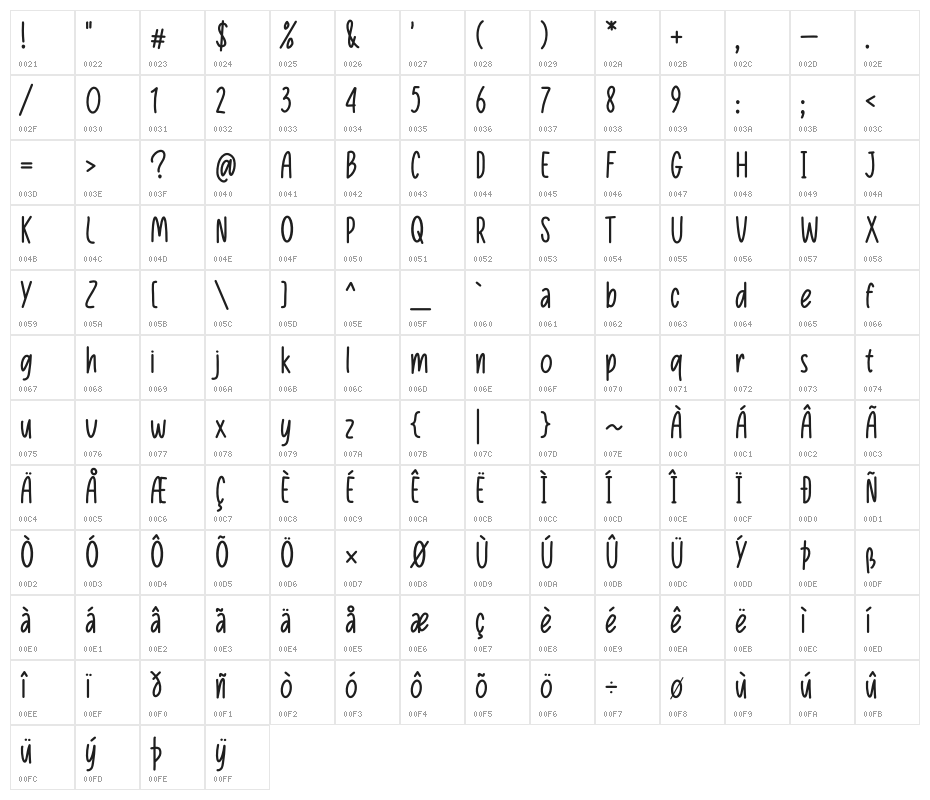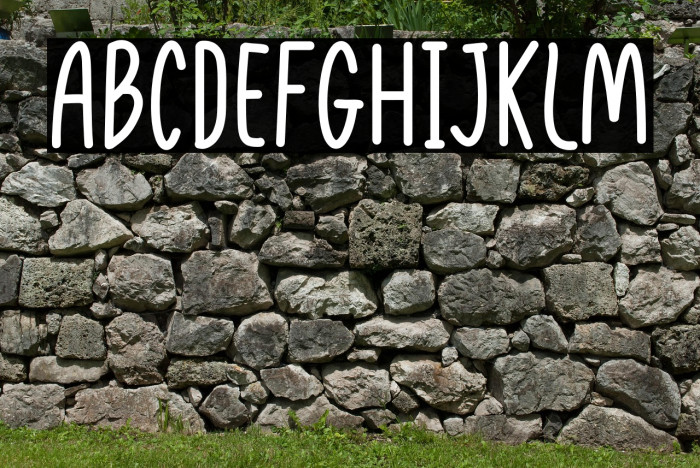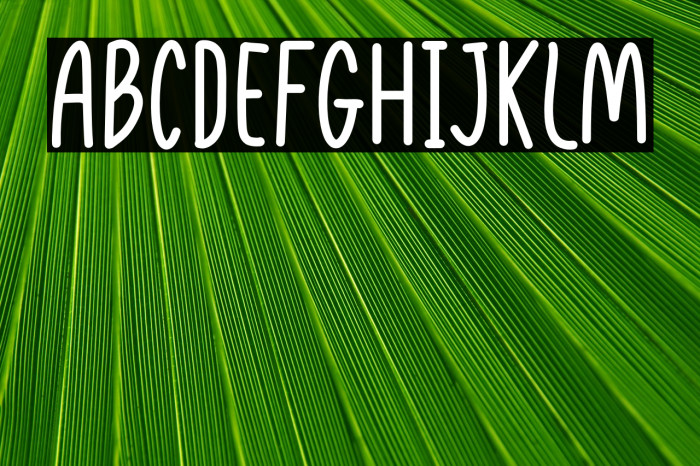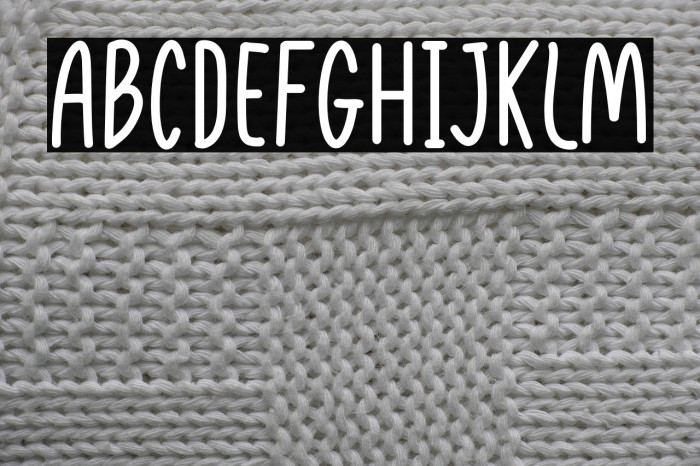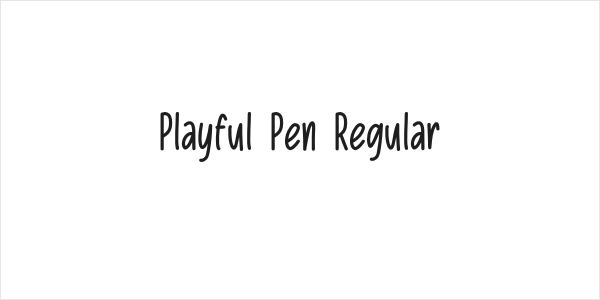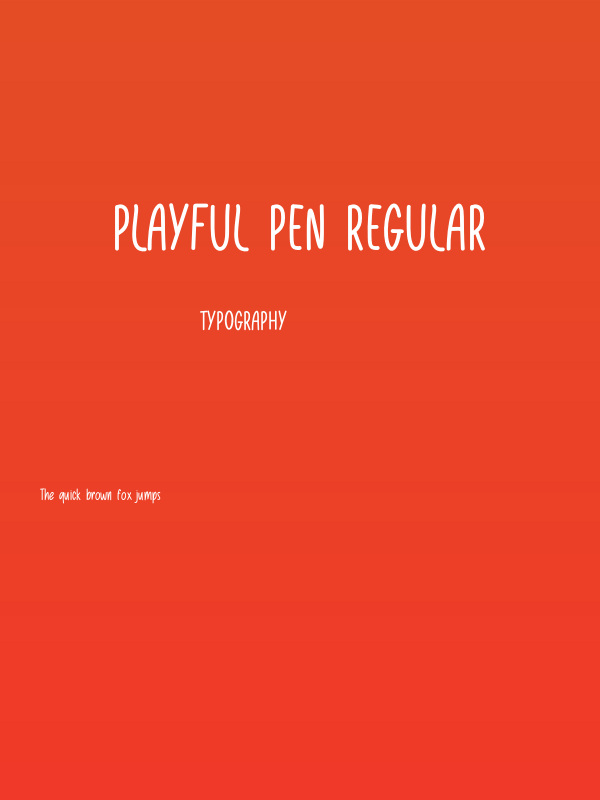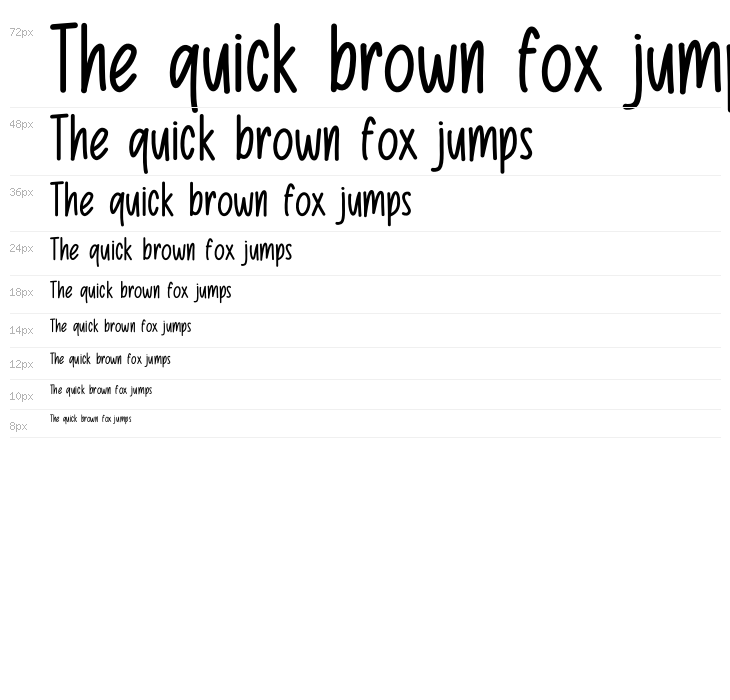
Playful Pen Regular Font
Playful Pen Regular Description
A playful and casual handwritten font with a friendly and approachable style.
| Overall Style | Playful, Casual |
| Use Case | Headlines, Informal text, Branding |
| Proposed Projects | Greeting cards, children's books, casual branding. |